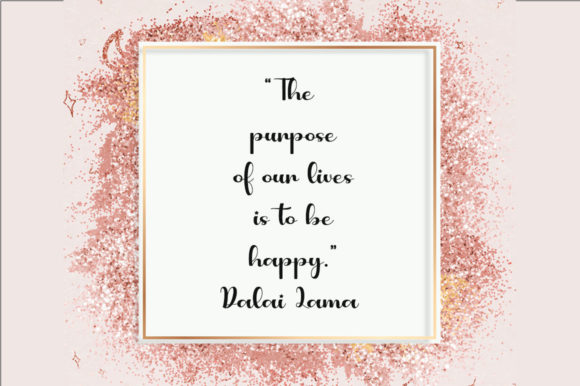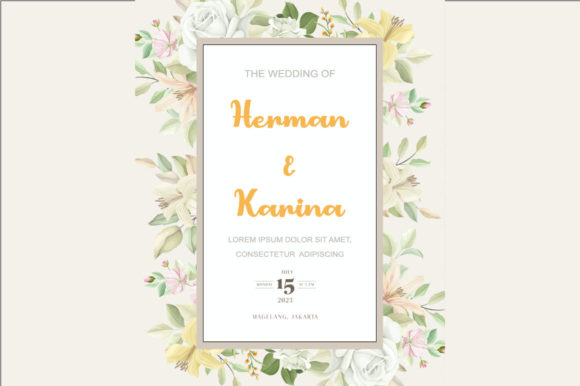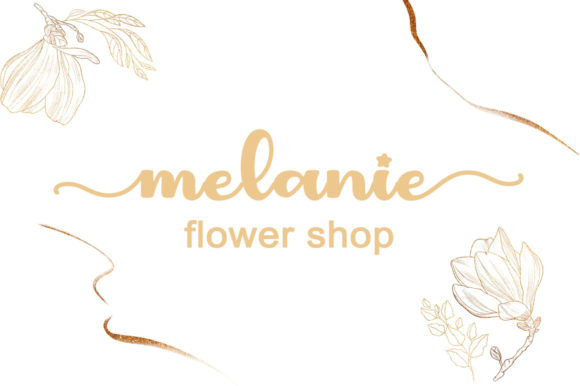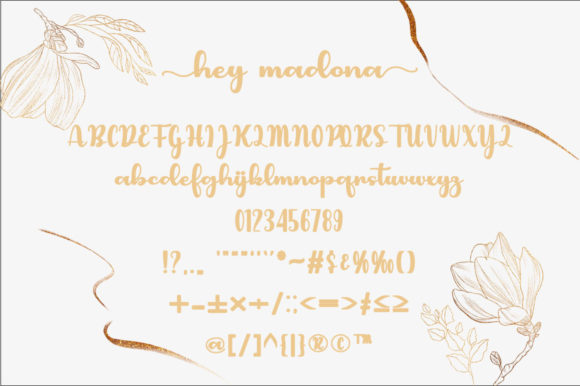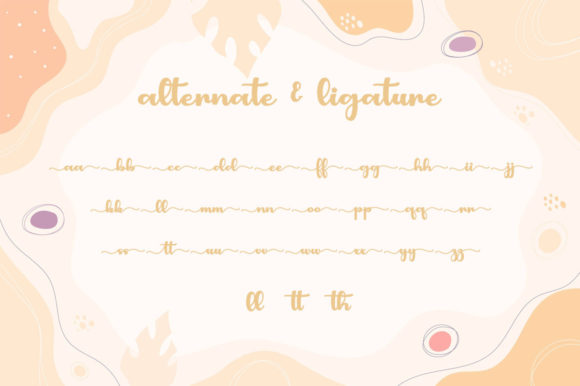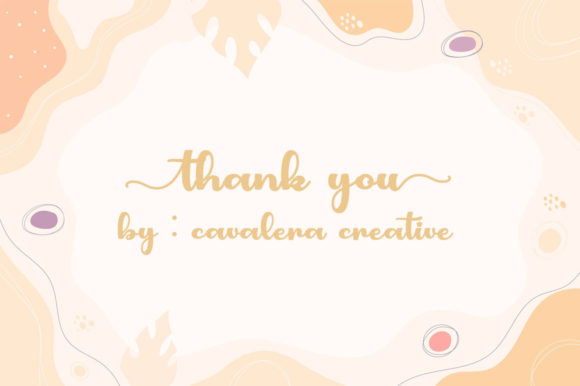
Introduction to Hey Madona Font
Hey Madonna is an enchanting handwritten font.
This versatile script font has a wide spectrum of applications ranging from greeting cards to headlines Hey Madonna is PUA encoded which means you can access all of the glyphs and swashes with ease.